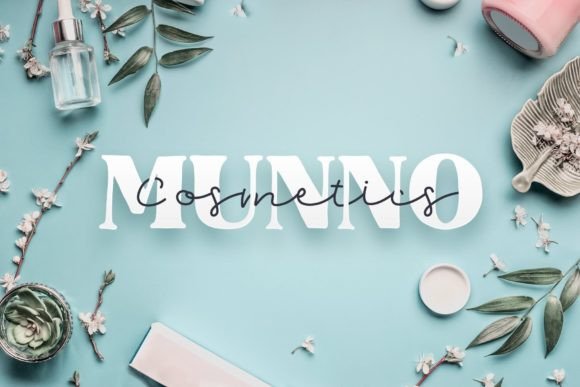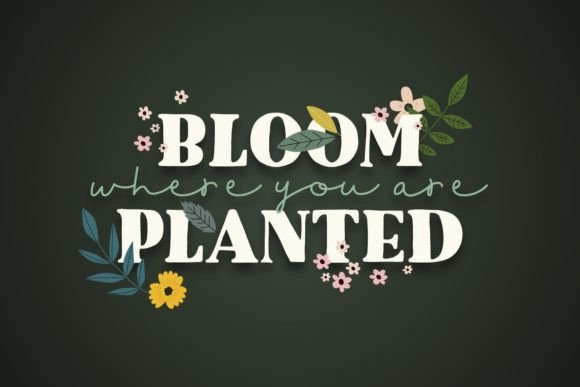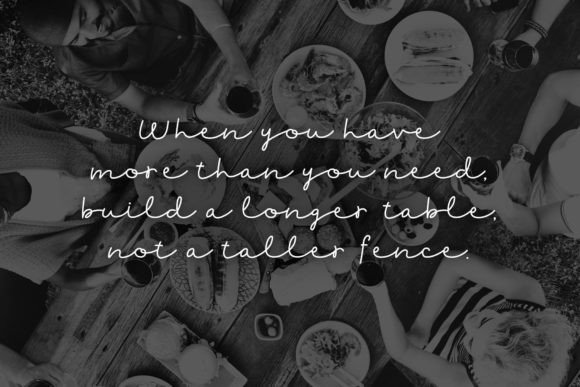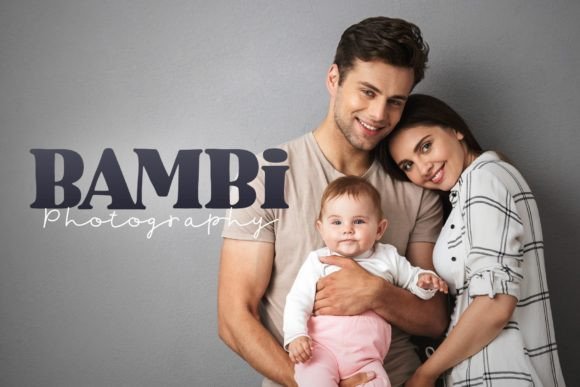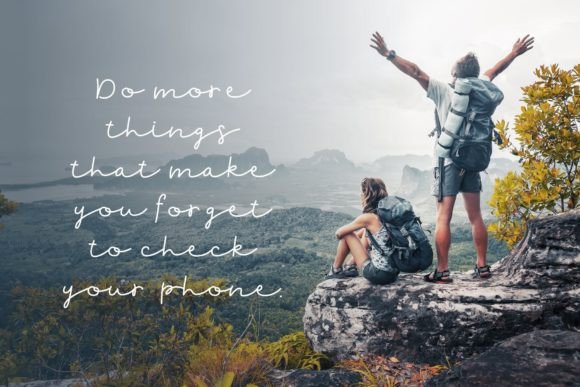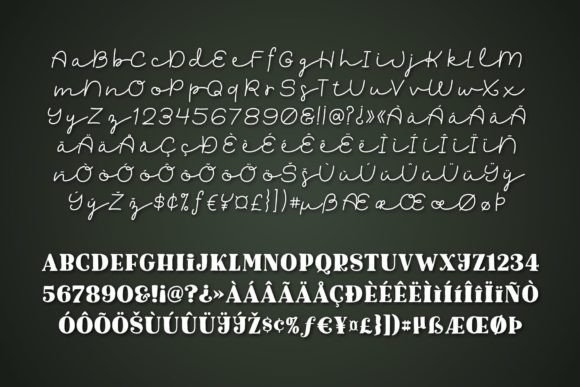
Garden Walk Font Duo: Elevate Your Designs with Elegance and Versatility
In the world of typography, finding the perfect font duo that combines elegance, versatility, and style can be a daunting task. However, the Garden Walk Font Duo has emerged as a game-changer, offering designers and crafters a unique blend of a thin, monoline script with a bold, stylized serif. This dynamic combination is perfect for logos and branding, or they can be used on their own for a subtler style. In this article, we’ll dive into the features, benefits, and uses of the Garden Walk Font Duo, exploring how it can elevate your designs and take your creativity to the next level.
Unpacking the Garden Walk Font Duo
The Garden Walk Font Duo is a thoughtfully crafted pair of fonts that cater to diverse design needs. The duo consists of two distinct fonts:
- Thin, Monoline Script: This font features a delicate, monoline script with a fluid, cursive style. Its thin strokes and elegant flow make it perfect for adding a touch of sophistication to your designs.
- Bold, Stylized Serif: The bold, stylized serif font boasts a sturdy, confident presence, with a unique blend of classic and modern elements. Its striking appearance makes it ideal for headlines, titles, and emphasis.
The Garden Walk Font Duo offers a range of benefits and features that make it an attractive choice for designers and crafters:
- Versatility: The duo’s versatility is one of its standout features. Use them together for a striking contrast or separately for a more subtle look.
- Elegance: The thin, monoline script exudes elegance and sophistication, perfect for luxury brands, weddings, and high-end designs.
- Readability: The bold, stylized serif font ensures excellent readability, making it suitable for body text, headlines, and titles.
- Customization: The Garden Walk Font Duo offers ample opportunities for customization, allowing you to experiment with different combinations, sizes, and colors.
Design Applications and Inspiration
The Garden Walk Font Duo’s versatility and style make it suitable for a wide range of design applications:
- Logos and Branding: Create stunning logos, business cards, and brand identities with the Garden Walk Font Duo.
- Wedding and Event Design: Add a touch of elegance to wedding invitations, programs, and event branding.
- Packaging and Product Design: Elevate your product packaging with the duo’s unique blend of style and sophistication.
- Digital and Print Media: Use the Garden Walk Font Duo in digital and print media, including magazines, blogs, and social media graphics.
Tips and Tricks for Working with the Garden Walk Font Duo
To get the most out of the Garden Walk Font Duo, consider the following tips and tricks:
- Experiment with Font Combinations: Try pairing the thin, monoline script with the bold, stylized serif font in different ways to create unique visual effects.
- Play with Size and Color: Experiment with different font sizes and colors to add depth, contrast, and visual interest to your designs.
- Add Texture and Patterns: Incorporate textures and patterns to add an extra layer of depth and visual appeal to your designs.
The Garden Walk Font Duo is a powerful and versatile design tool that offers a unique blend of elegance, style, and versatility. With its thin, monoline script and bold, stylized serif font, this duo is perfect for designers and crafters looking to elevate their designs and take their creativity to the next level. Whether you’re working on logos, branding, wedding designs, or packaging, the Garden Walk Font Duo is sure to inspire and deliver stunning results.